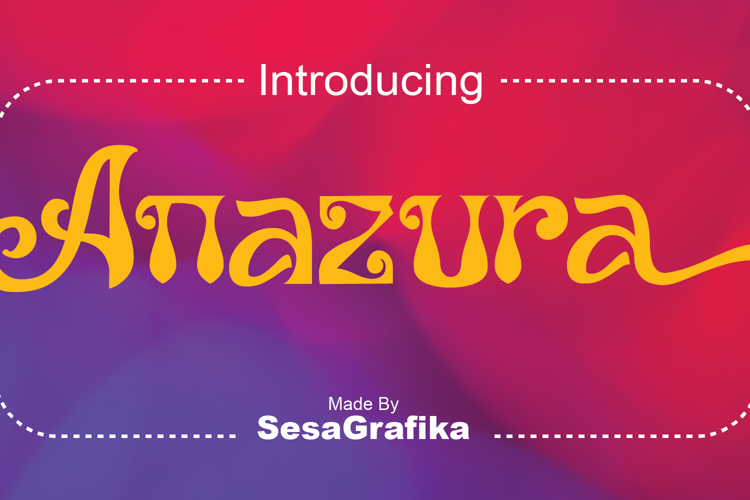
Anazura Font
Anazura is a vintage font with a unique style. Is a great retro-styled script font. Clean and a little bit quirky, this font is the perfect fit for all of your logos, branding, social media, apparel, and more. It is PUA encoded which means you can access all of the glyphs and swashes with ease!